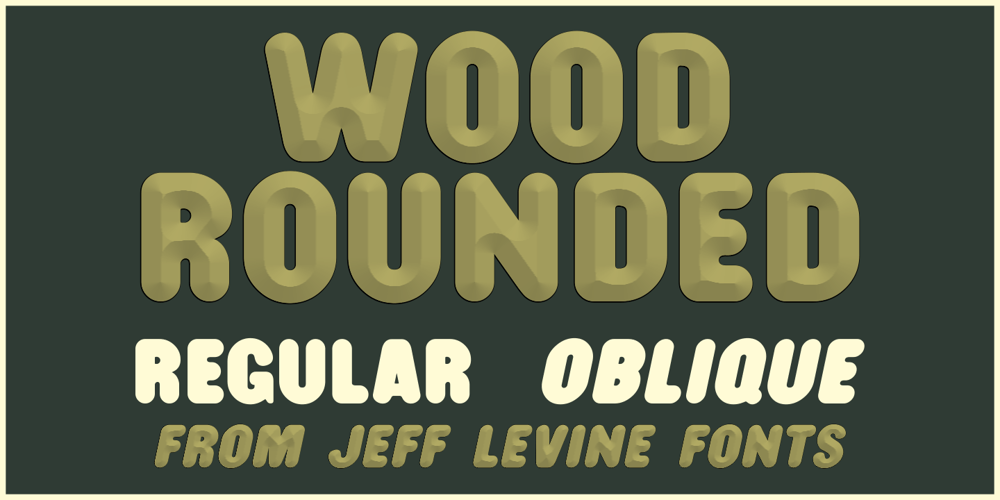
Wood Rounded JNL
Wood Rounded JNL Font Family was designed by Jeff Levine and published by Jeff Levine. Wood Rounded JNL contains 2 styles and family package options. This reinterpretation of Caslon Rounded showcases one of the early attempts of type foundries to create a novelty ‘rounded’ typeface for general use.While the lettering might easily convey a more modern look of 1960s or 1970s pop typography, its roots definitely lay in the later part of the 19th Century and the heyday of wood type design.Wood Rounded JNL is available in both regular and oblique versions.